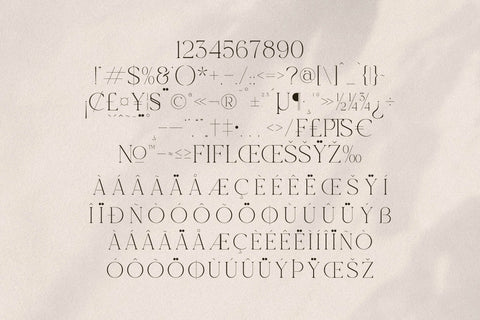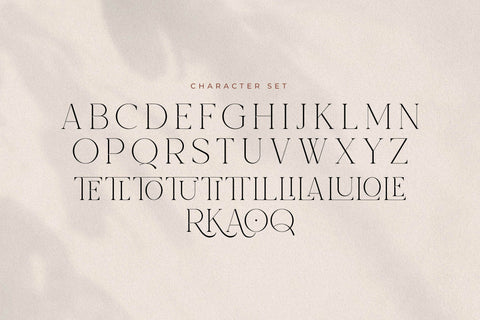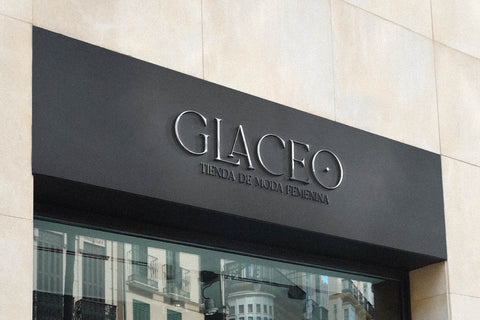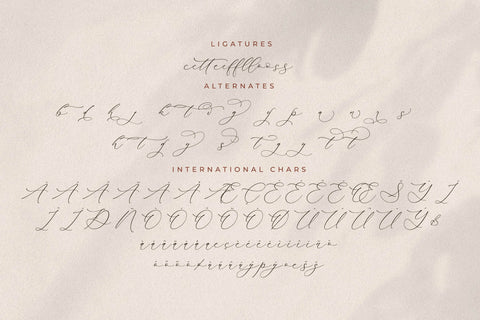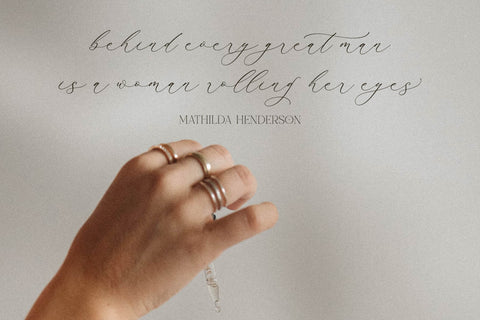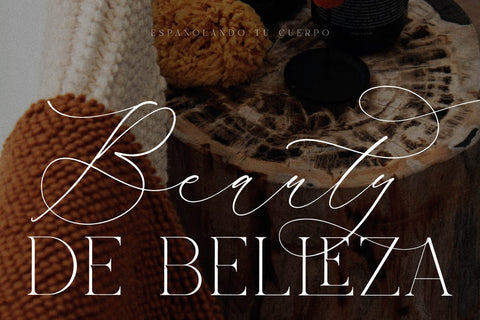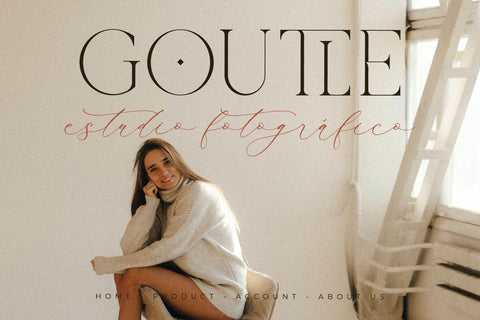
Fantasy Qelirole Font Duo
Proudly present Fantasy Qelirole Font Duo , created by Storytype,
A serif and script typeface that has own unique style & modern look.